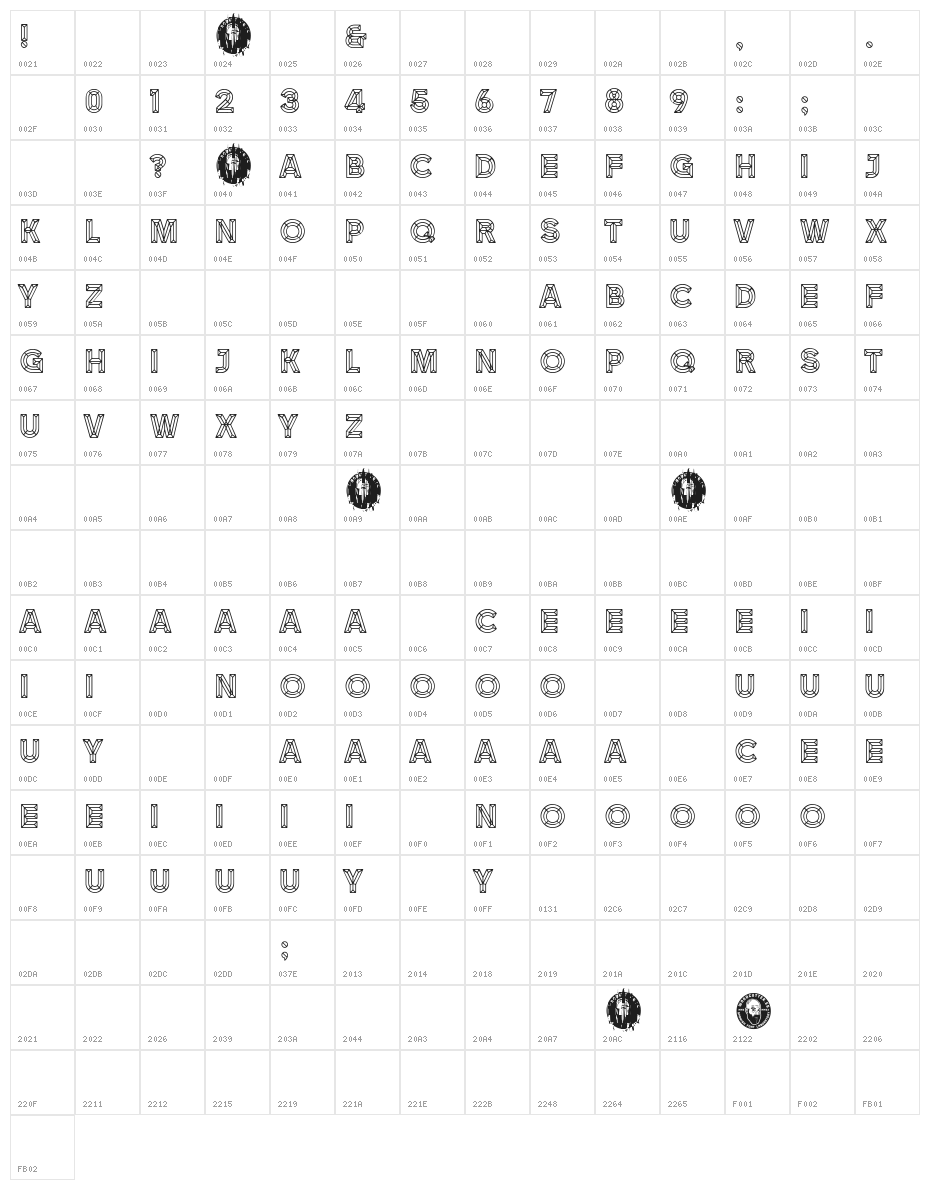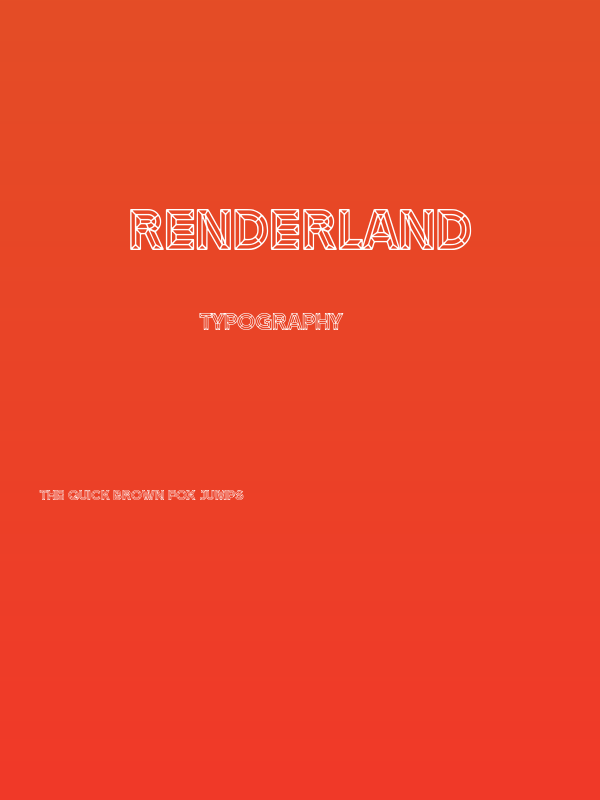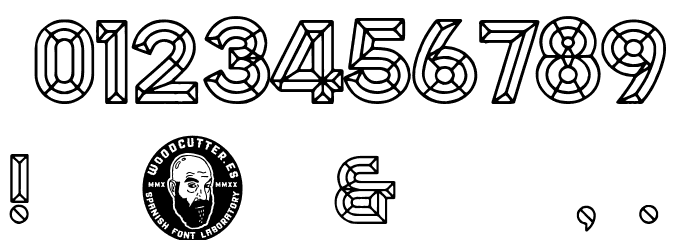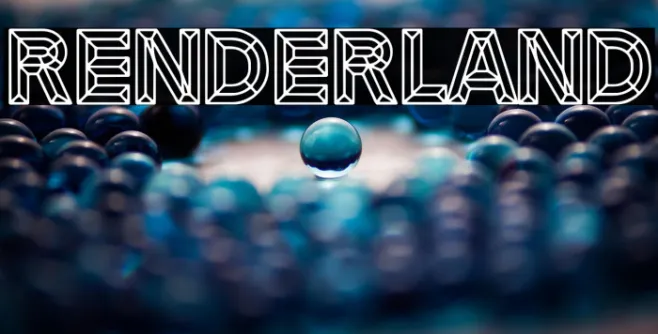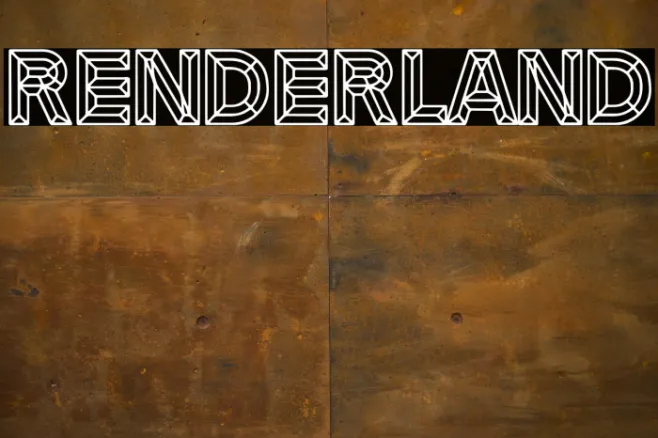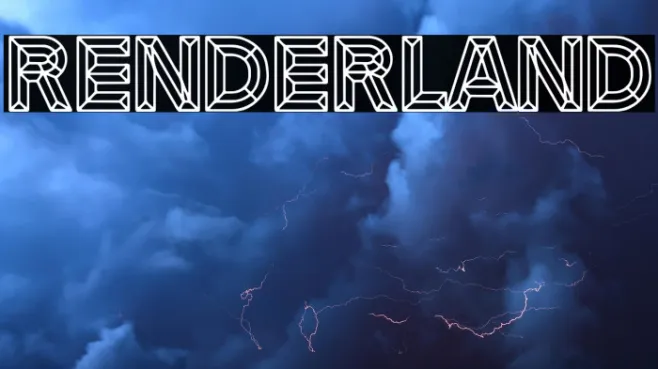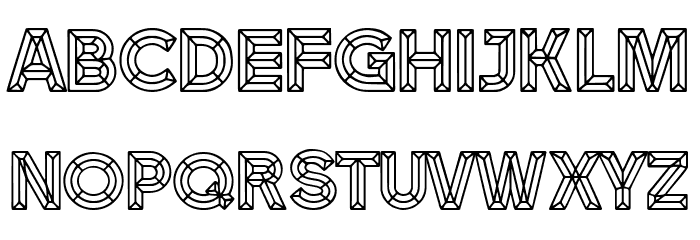
Renderland Font
Renderland Description
This font features a bold, geometric design with a three-dimensional effect created by overlapping lines. Each character is constructed with precision, giving it a modern and industrial feel. The uppercase and lowercase letters maintain a consistent style, with sharp angles and clean lines that enhance its structured appearance. The numerals and special characters follow the same design principles, ensuring uniformity across the typeface. This font stands out due to its unique outline and layered look, making it ideal for eye-catching designs.
RENDERLAND UPPERCASE
RENDERLAND LOWERCASE
RENDERLAND OTHER CHARS